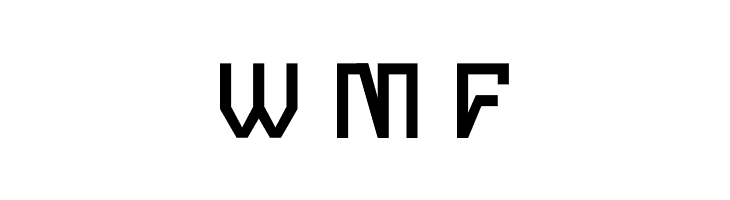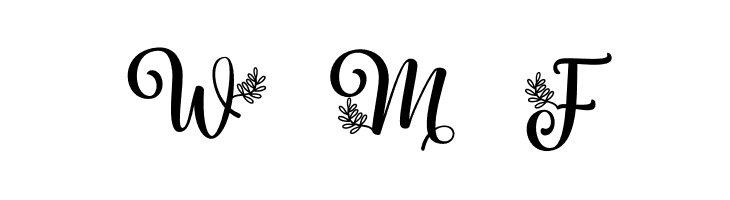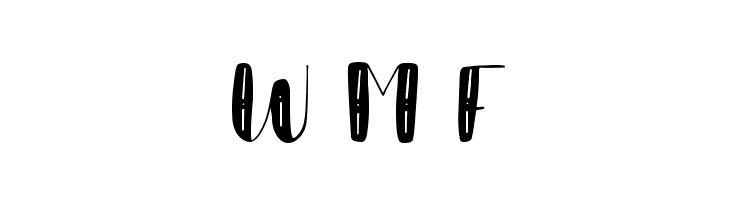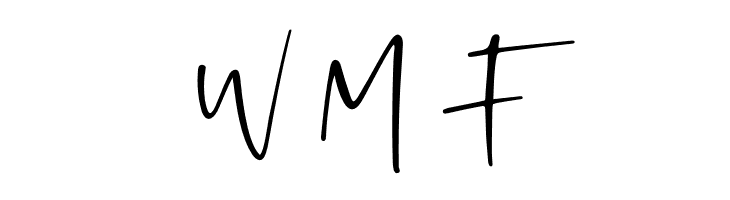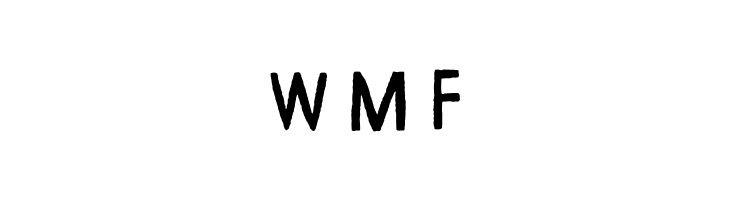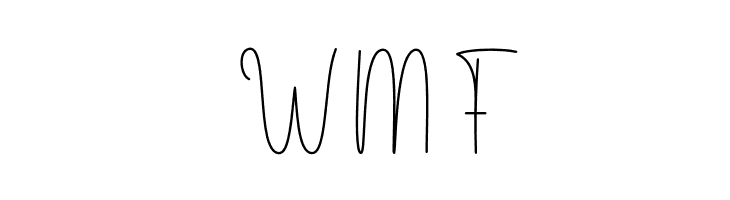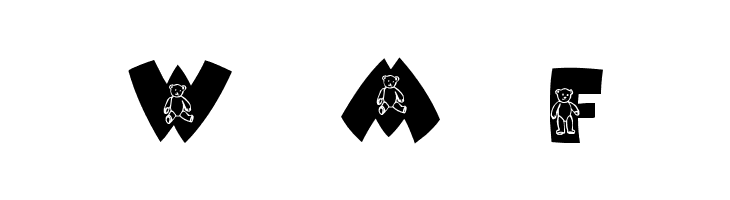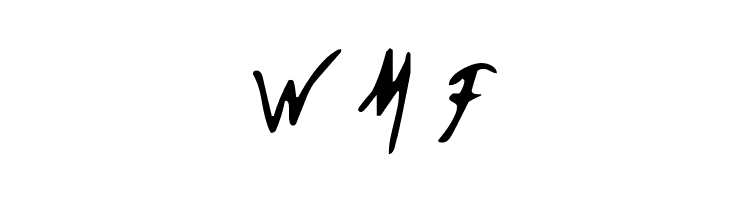
A bold, playful font with a hand-drawn, cartoonish style.
A decorative floral dingbat font with hand-drawn flower illustrations.
A bold, pixelated font with a retro, digital aesthetic.
A bold, futuristic font with geometric shapes and sharp angles.
A decorative font with Christmas-themed illustrations replacing standard characters.
Halloween-themed dingbat font with bold, spooky icons.
A bold, playful font with a three-dimensional outline effect.
A playful, whimsical font with bold, uneven letterforms and a hand-crafted feel.
A bold, playful font with vintage-inspired rounded and angular elements.
A bold, hand-drawn font with a playful and energetic style.
A medieval-inspired calligraphic font with sharp, angular strokes and elegant curves.
A modern, sleek, and slightly italicized font with a condensed style.
A geometric and structured font with clean lines and uniform strokes.
A playful, star-embellished font with bold, rounded letterforms.
A bold, italic, and angular font with a futuristic style.
A bold, geometric font with a strong, angular design.
A bold, geometric font with sharp angles and a blocky appearance.
A bold, italicized font with sharp, angular lines and a futuristic style.